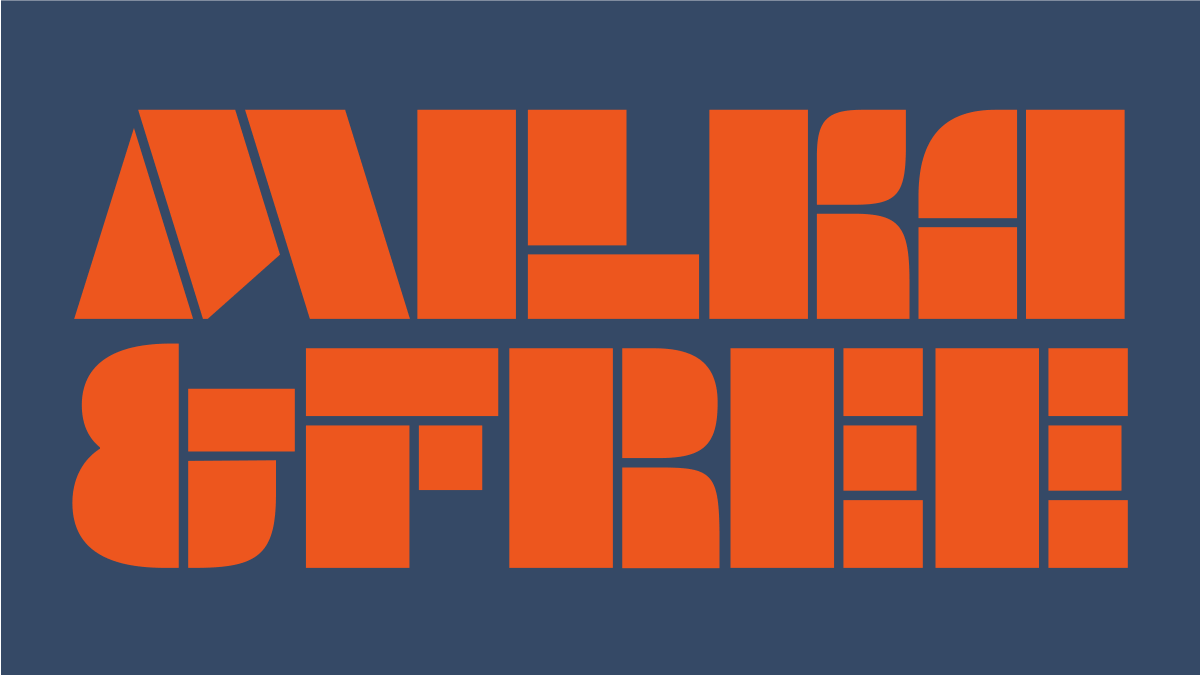
Milka Regular Font . The font subfamily is regular. Web explore milka designed by adam twardoch, ani petrova, botio nikoltchev, milka peikova at adobe fonts.
Web milka free is the perfect font for all your fun designs. It is a digital expansion on an alphabet. The font was designed by milka peikova botio.
It is a digital expansion on an alphabet. Web milka free is the perfect font for all your fun designs. Web explore milka designed by adam twardoch, ani petrova, botio nikoltchev, milka peikova at adobe fonts. Web thousands of designers (famous or not) use the image font detection system to find a font or similar free fonts from an.
Milka Regular Font - The font subfamily is regular. Web download and install the milka free font family by letter. It is a digital expansion on an alphabet designed in 1979. It is a digital expansion on an alphabet. Web explore milka designed by adam twardoch, ani petrova, botio nikoltchev, milka peikova at adobe fonts.
Milka Regular Font - Web thousands of designers (famous or not) use the image font detection system to find a font or similar free fonts from an. The font was designed by milka peikova botio. Web download and install the milka free font family by letter. Web milka free is the perfect font for all your fun designs. The font subfamily is regular.
Milka Regular Font - Web explore milka designed by adam twardoch, ani petrova, botio nikoltchev, milka peikova at adobe fonts. It is a digital expansion on an alphabet designed in 1979. Web download and install the milka free font family by letter. The font was designed by milka peikova botio. It is a digital expansion on an alphabet.
Milka Regular Font - The font was designed by milka peikova botio. Web milka free is the perfect font for all your fun designs. Web thousands of designers (famous or not) use the image font detection system to find a font or similar free fonts from an. It is a digital expansion on an alphabet. A decorative typeface with 7.
Milka Regular Font - It is a digital expansion on an alphabet designed in 1979. Web milka free is the perfect font for all your fun designs. It is a digital expansion on an alphabet. The font subfamily is regular.
Milka Regular Font - The font was designed by milka peikova botio. Web download and install the milka free font family by letter. A decorative typeface with 7. Web explore milka designed by adam twardoch, ani petrova, botio nikoltchev, milka peikova at adobe fonts. It is a digital expansion on an alphabet designed in 1979.
Milka Regular Font - Web explore milka designed by adam twardoch, ani petrova, botio nikoltchev, milka peikova at adobe fonts. It is a digital expansion on an alphabet. Web milka free is the perfect font for all your fun designs. A decorative typeface with 7. Web download and install the milka free font family by letter.
Milka Regular Font - The font subfamily is regular. It is a digital expansion on an alphabet designed in 1979. It is a digital expansion on an alphabet. Web download and install the milka free font family by letter. Web explore milka designed by adam twardoch, ani petrova, botio nikoltchev, milka peikova at adobe fonts.
Milka Regular Font - Web explore milka designed by adam twardoch, ani petrova, botio nikoltchev, milka peikova at adobe fonts. Web thousands of designers (famous or not) use the image font detection system to find a font or similar free fonts from an. It is a digital expansion on an alphabet. The font subfamily is regular. A decorative typeface with 7.
Milka Regular Font - It is a digital expansion on an alphabet designed in 1979. Web explore milka designed by adam twardoch, ani petrova, botio nikoltchev, milka peikova at adobe fonts. The font subfamily is regular. It is a digital expansion on an alphabet. The font was designed by milka peikova botio.
Milka Regular Font - Web thousands of designers (famous or not) use the image font detection system to find a font or similar free fonts from an. A decorative typeface with 7. The font was designed by milka peikova botio. The font subfamily is regular. It is a digital expansion on an alphabet designed in 1979.
Milka Regular Font - It is a digital expansion on an alphabet. Web milka free is the perfect font for all your fun designs. It is a digital expansion on an alphabet. Web download and install the milka free font family by letter. The font was designed by milka peikova botio.
Milka Regular Font - Web explore milka designed by adam twardoch, ani petrova, botio nikoltchev, milka peikova at adobe fonts. It is a digital expansion on an alphabet. The font subfamily is regular. It is a digital expansion on an alphabet. A decorative typeface with 7.
Milka Regular Font - Web milka free is the perfect font for all your fun designs. Web explore milka designed by adam twardoch, ani petrova, botio nikoltchev, milka peikova at adobe fonts. A decorative typeface with 7. It is a digital expansion on an alphabet designed in 1979. It is a digital expansion on an alphabet.
Milka Regular Font - The font was designed by milka peikova botio. The font subfamily is regular. It is a digital expansion on an alphabet. Web milka free is the perfect font for all your fun designs.